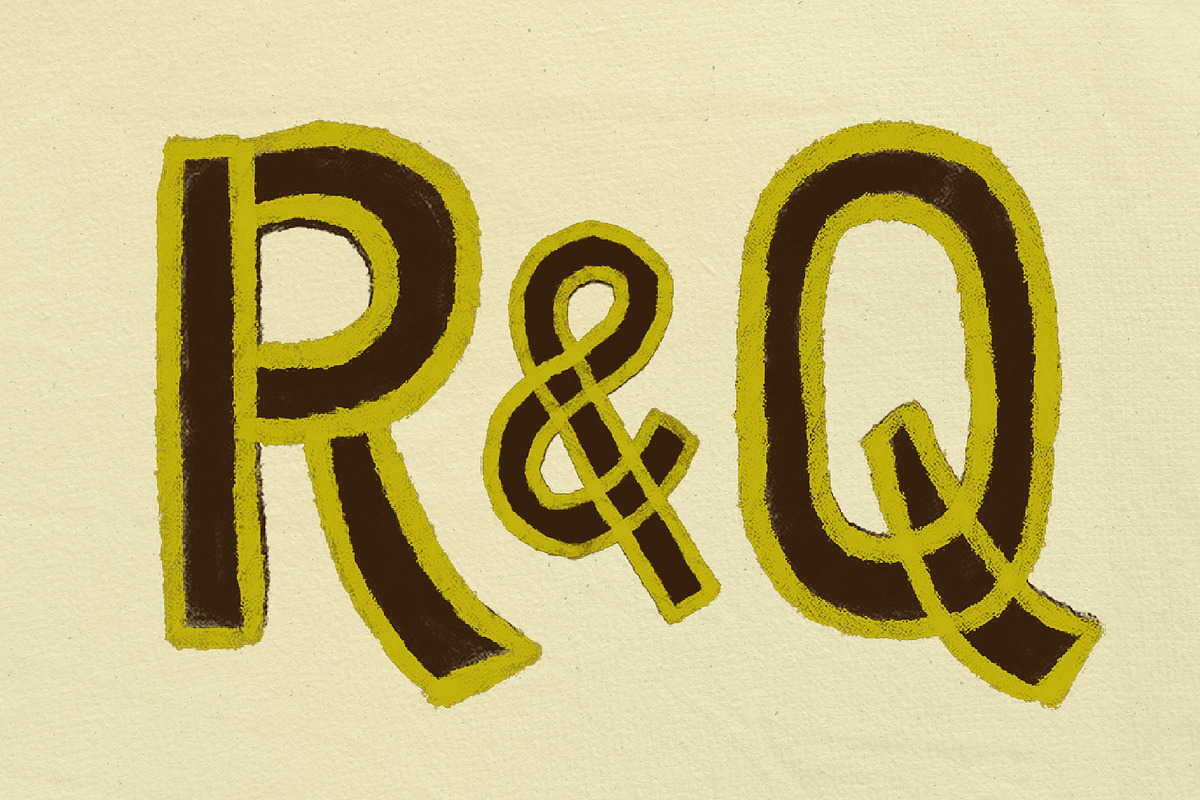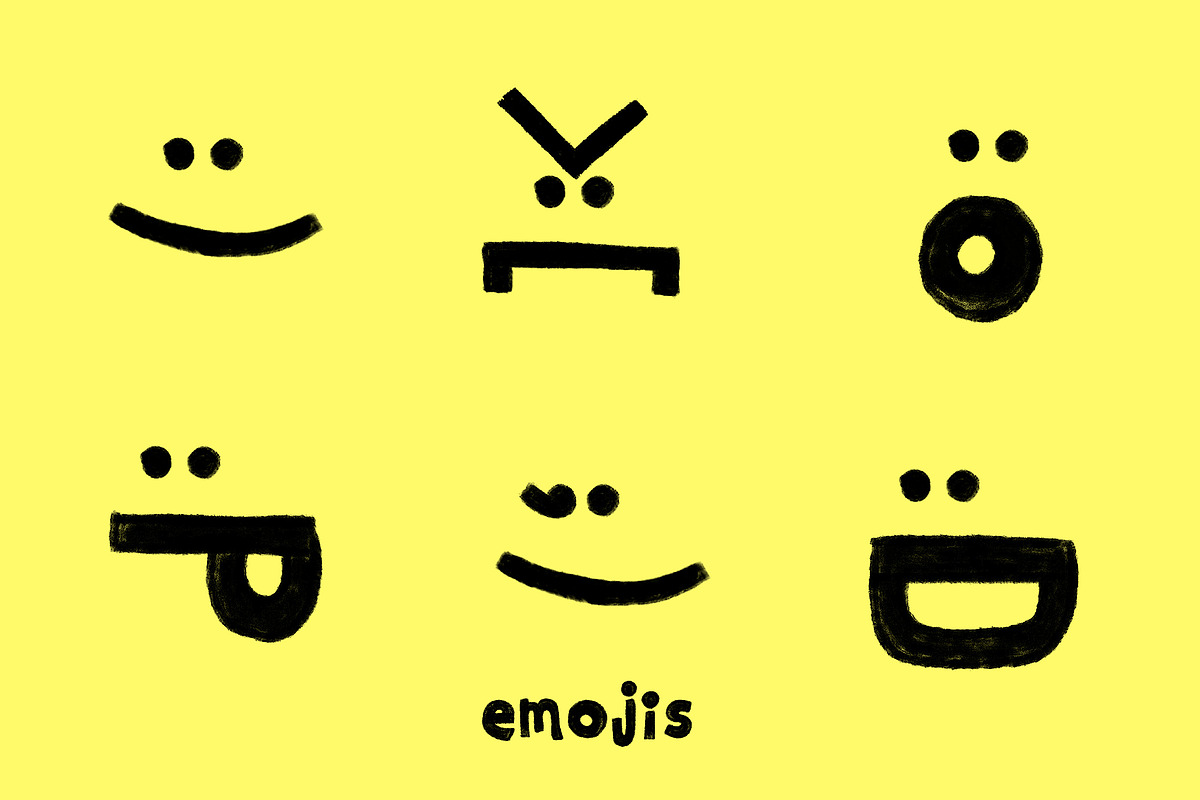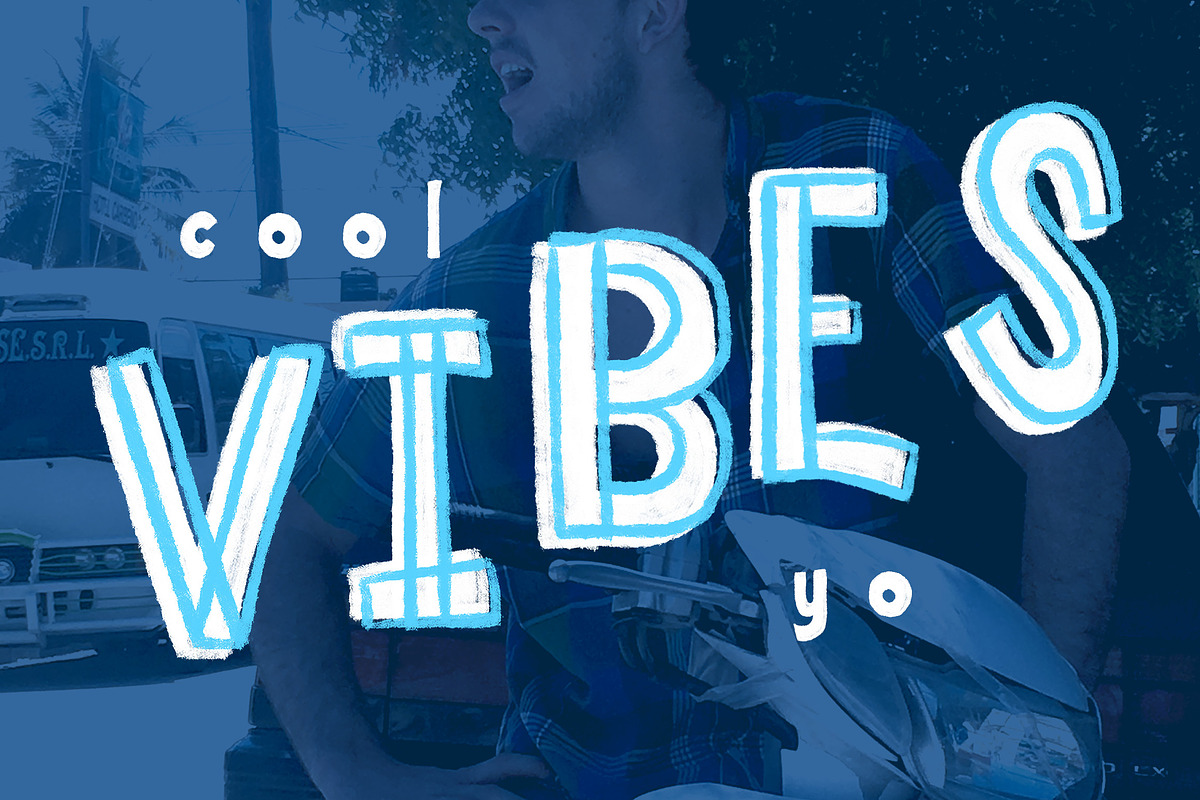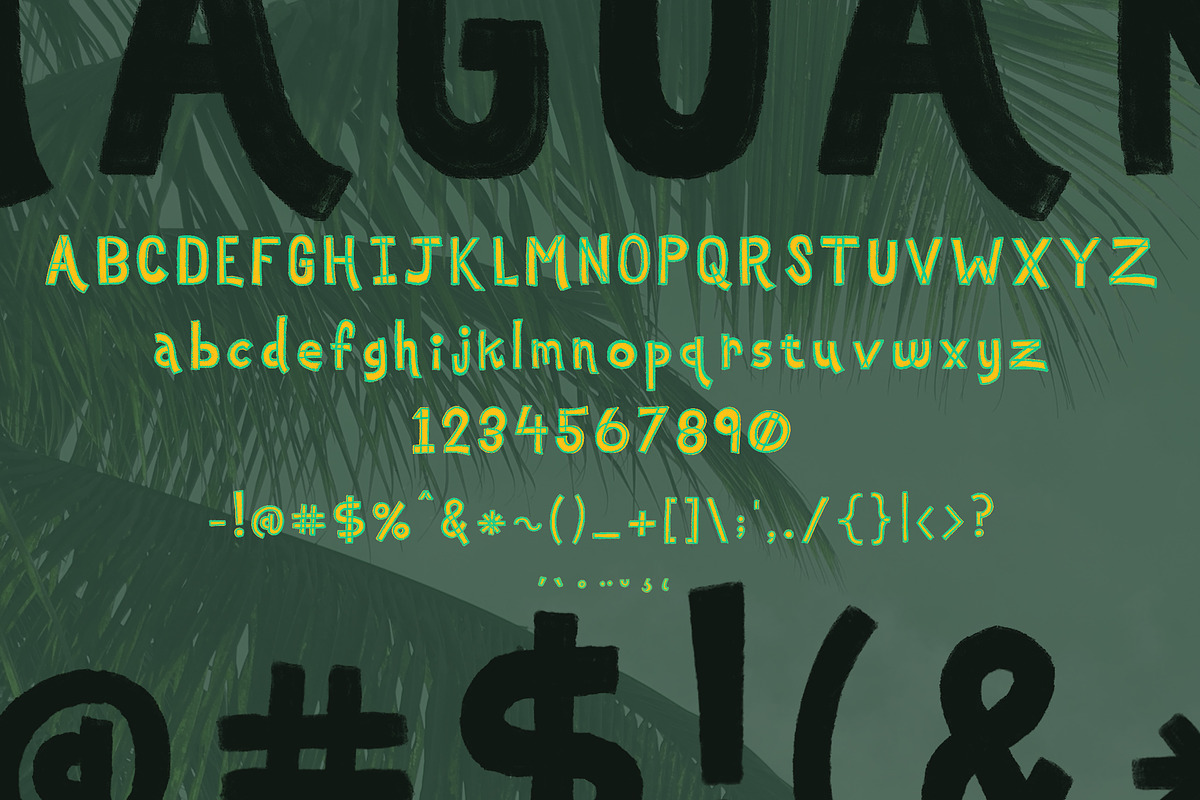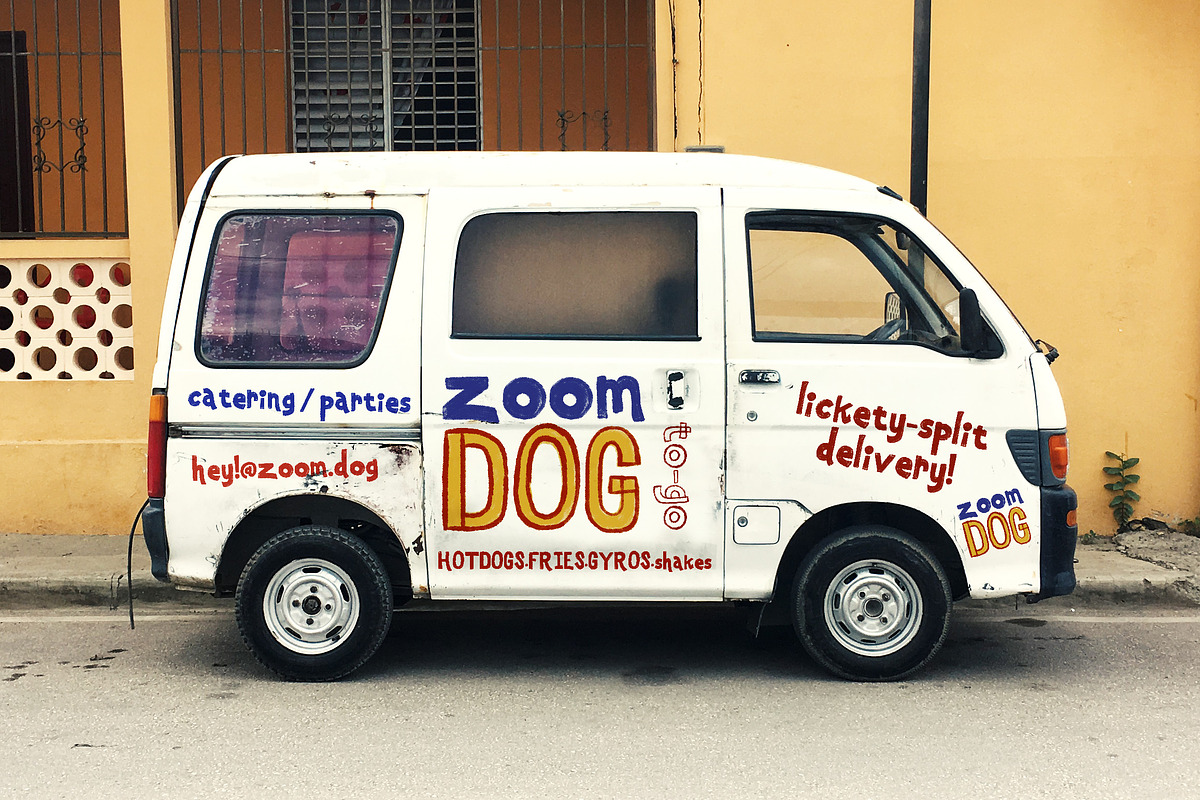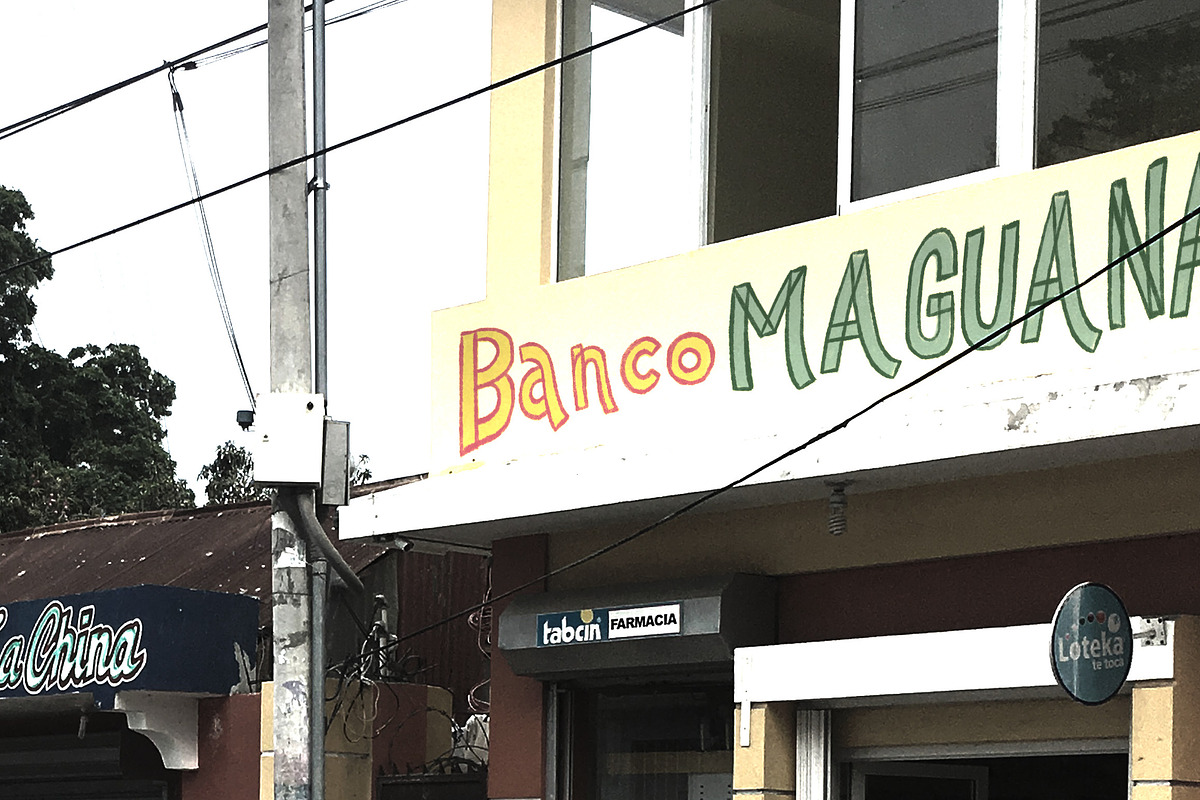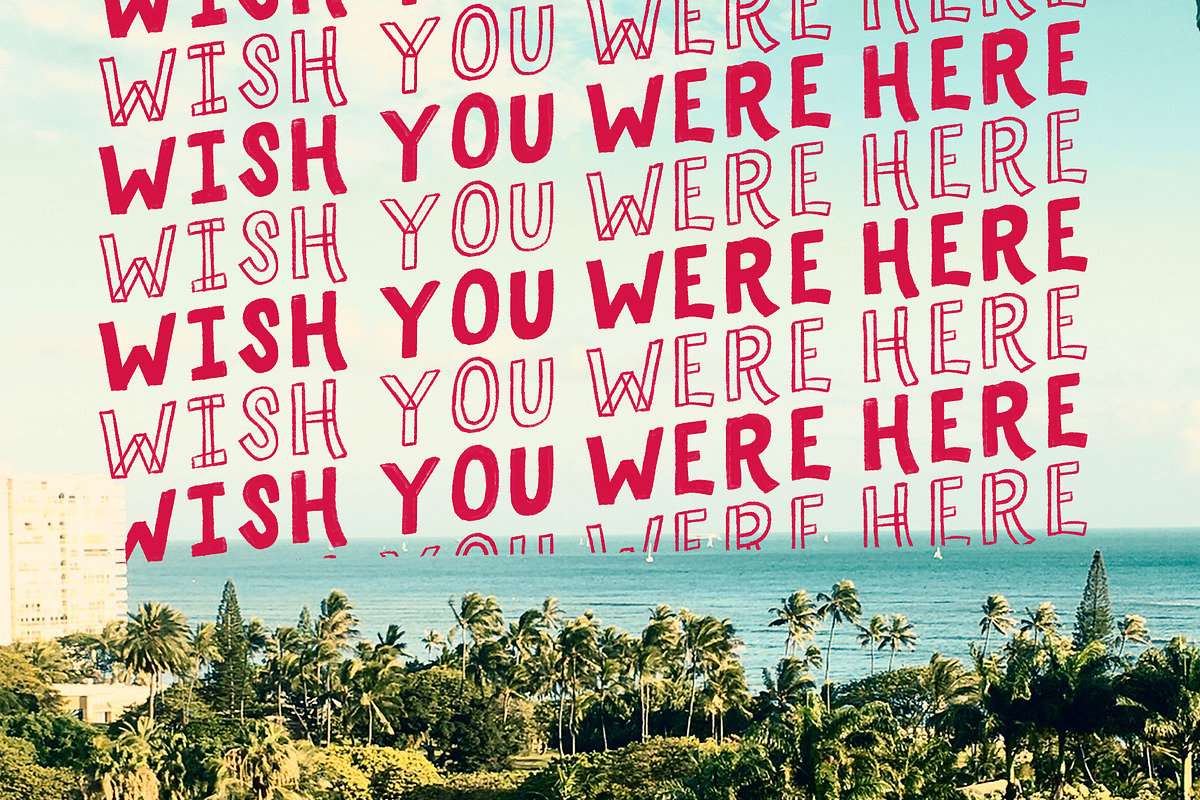
Maguana ~ Hand-drawn SVG Font
Maguana is a hand-drawn Open SVG font inspired by hand-lettered signage seen while traveling in Central America. It's got a relaxed, tropical vibe with true hand made character. The solid, swishy characters are fun on their own but add in the Outline style to add some extra vibes.